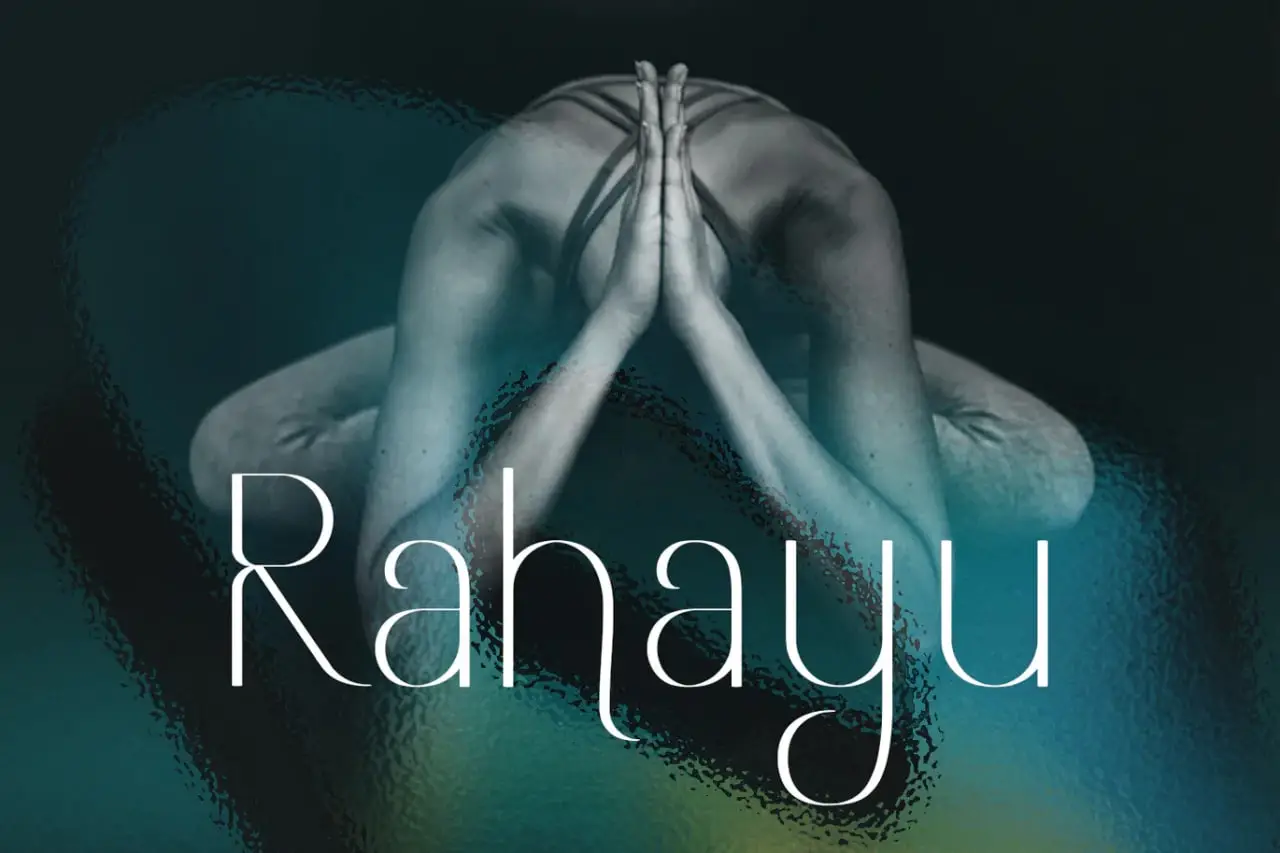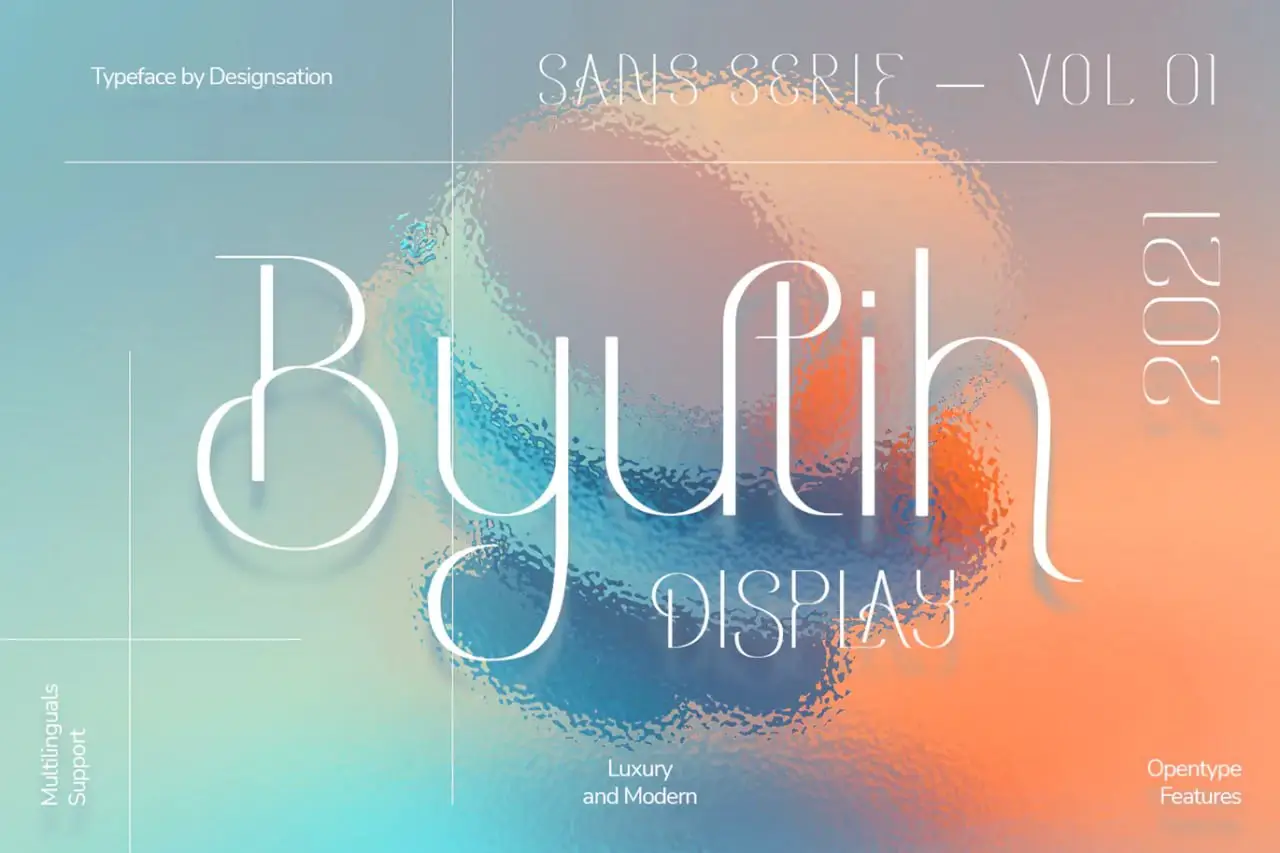
Designsation-Byutih Sans Typeface
The Designsation-Byutih Sans Typeface is a modern and versatile font that combines elegance with readability. This typeface features a clean, sans-serif design, making it suitable for a wide range of applications, from branding to digital media.
• Ideal for logos, headlines, and body text.
• Perfect for both print and digital projects.
• Great choice for user interfaces and web design.